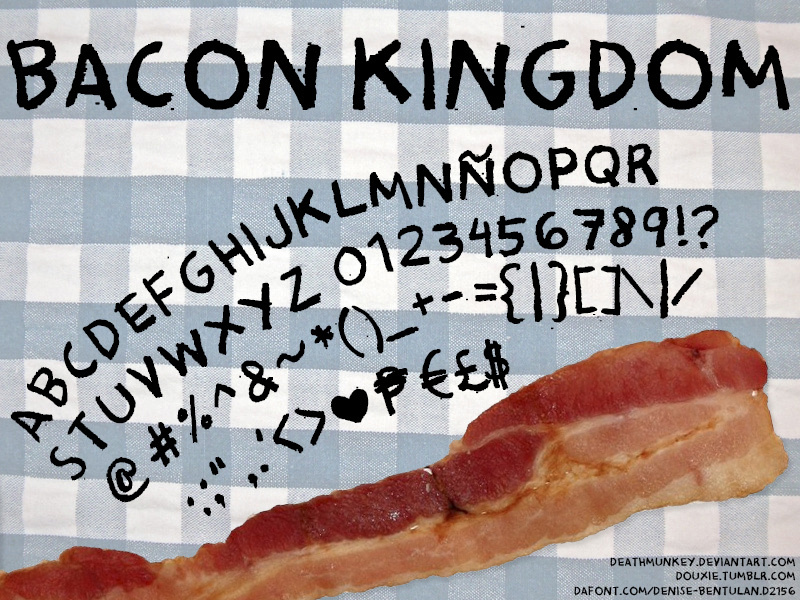
Bacon Kingdom by Denise Bentulan is a free handwritten display font with the raw look of letters scratched down in haste. Its tall, uneven forms shift in width and lean, giving the line a restless pace. Rough edges and blunt, tapering strokes make the writing feel closer to marker and dry paint than tidy penmanship.
DIY music and underground publishing are a natural match for this abrasive lettering, especially on concert posters, album covers, and magazine covers. In distressed merchandise graphics or rebellious event artwork, the same rough marks read as hand-painted signage.